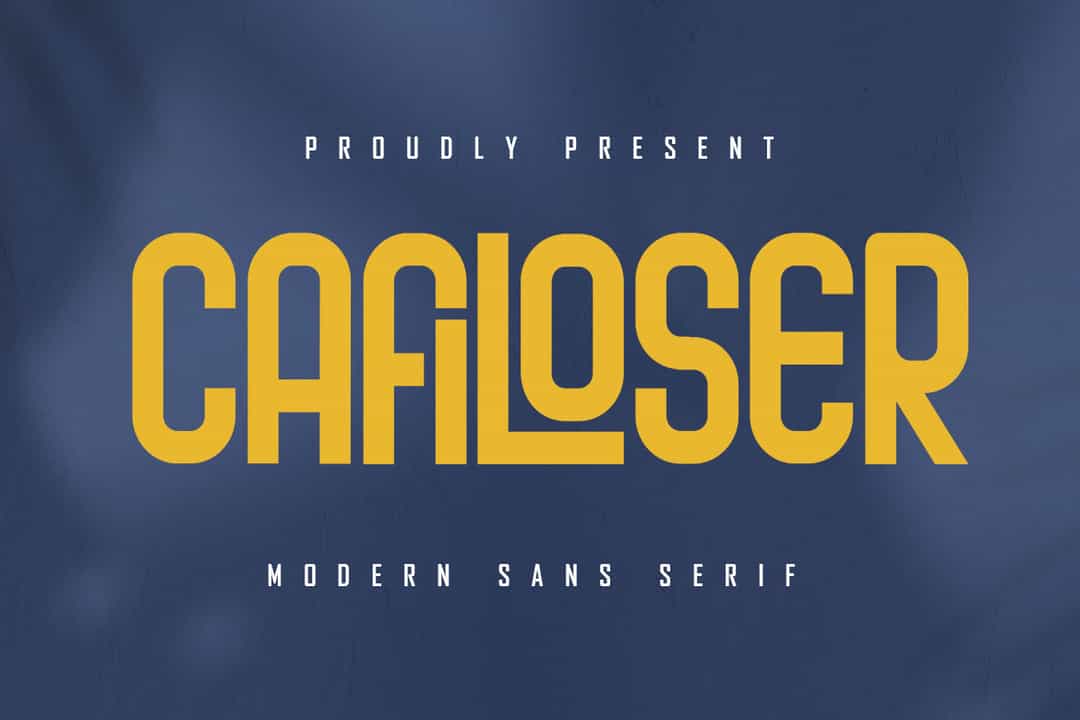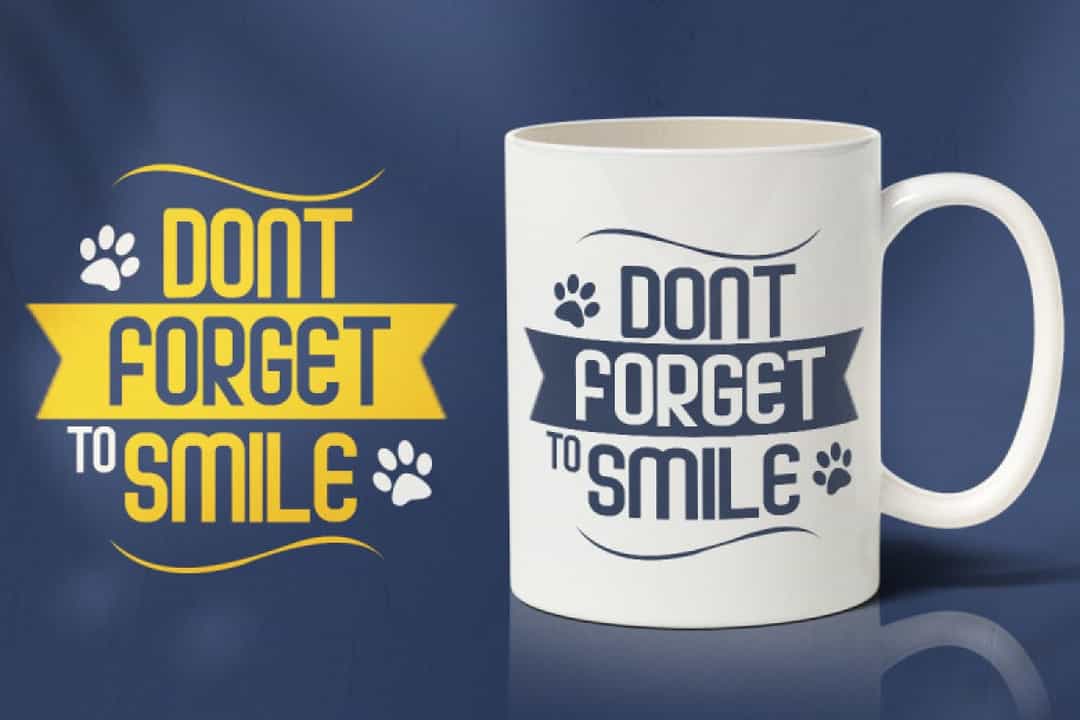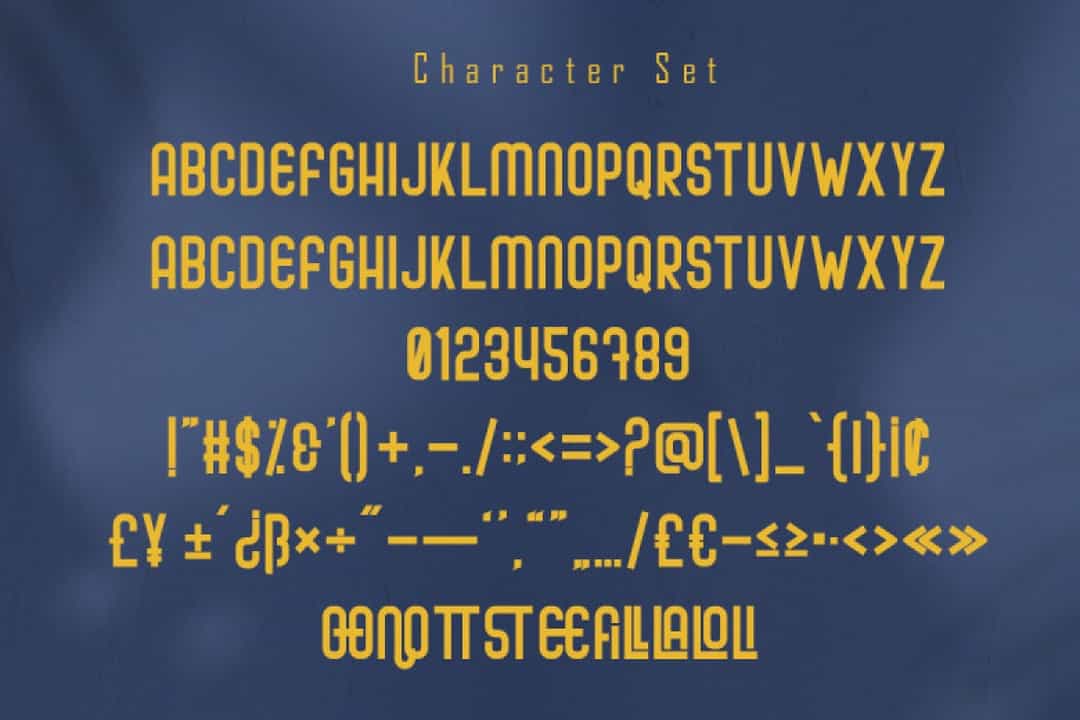
Cafiloser Font is an eye-catching modern sans serif font that will add style and flair to your font library, no matter what the subject matter may be. Cafiloser font is designed to complement all types of typefaces; thus it makes an invaluable asset.